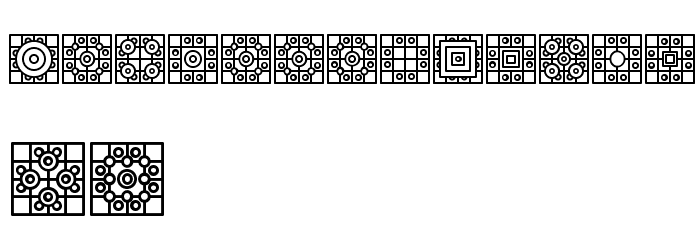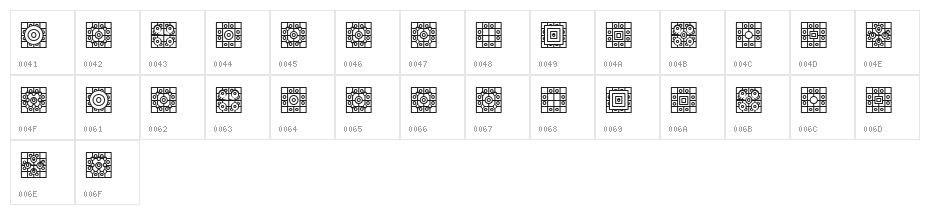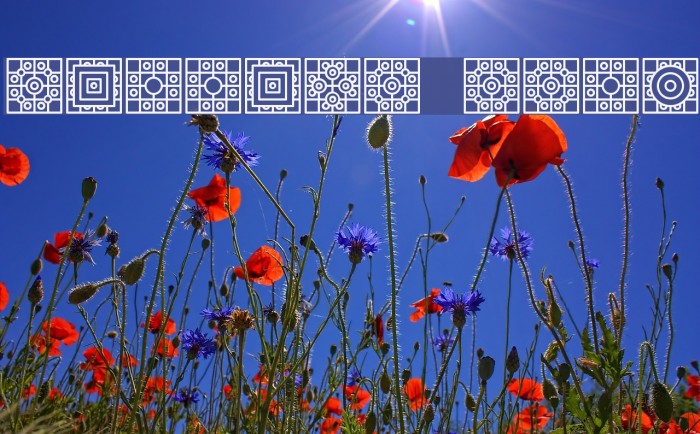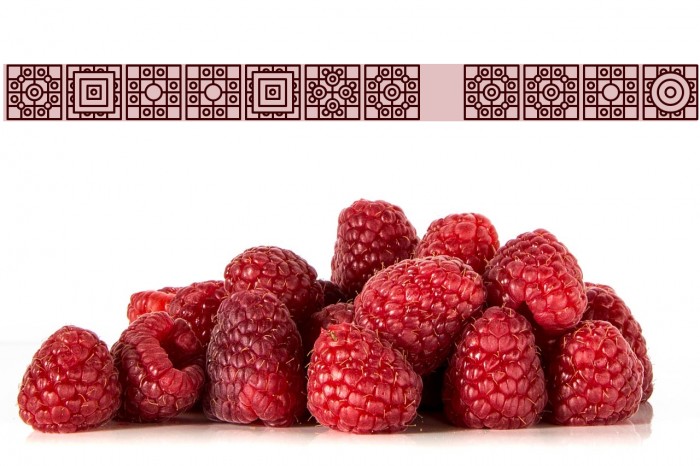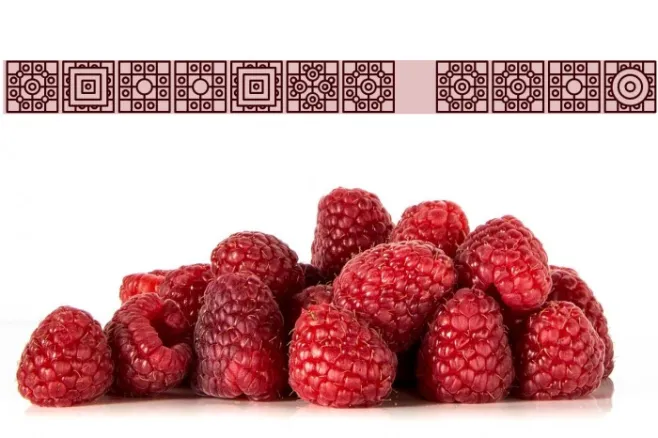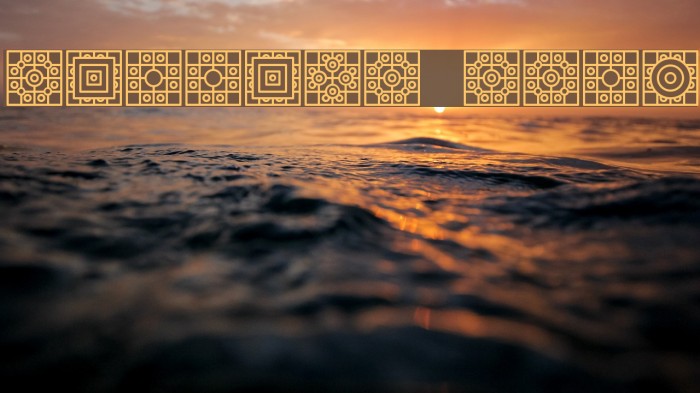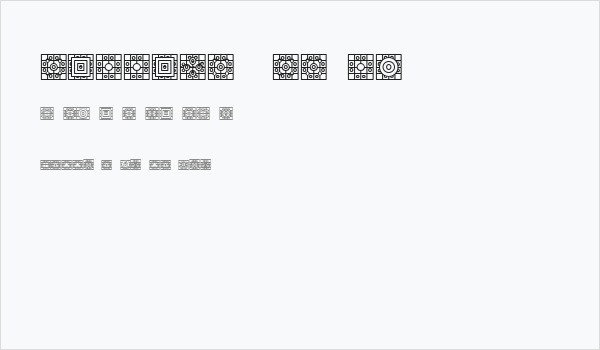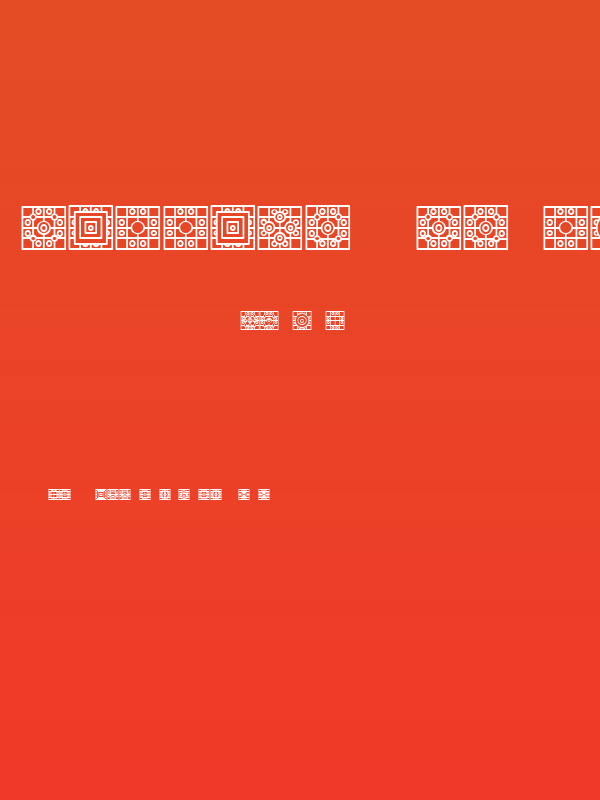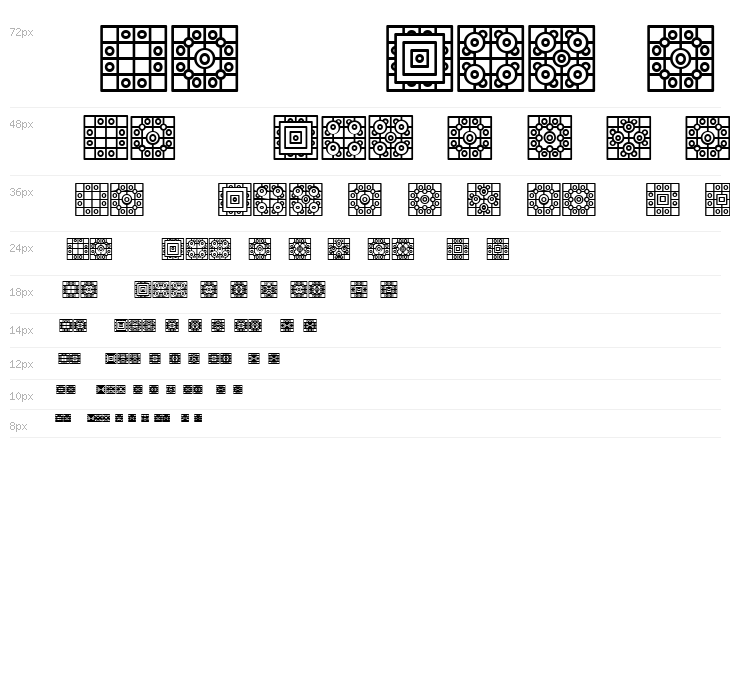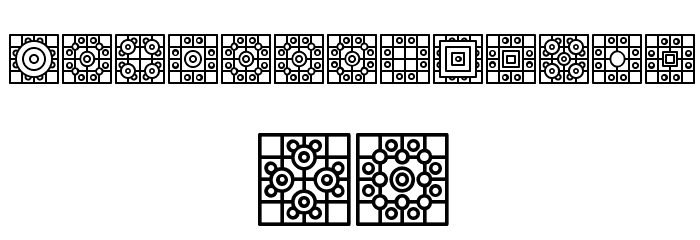
Filling Regular Font
Filling Regular Description
This design features a series of intricate geometric patterns enclosed within square frames. Each character is represented by a unique arrangement of circles, lines, and dots, creating a visually complex and decorative appearance. The style is reminiscent of mosaic or tile art, with a focus on symmetry and balance. The patterns are bold and striking, making them suitable for decorative purposes rather than traditional text representation. The overall aesthetic is modern and artistic, with a hint of vintage charm due to the repetitive and structured nature of the designs.
| Use Case | Logos, Decorative elements |
| Proposed Projects | Suitable for decorative borders, artistic projects, digital art, and design elements in creative works. |